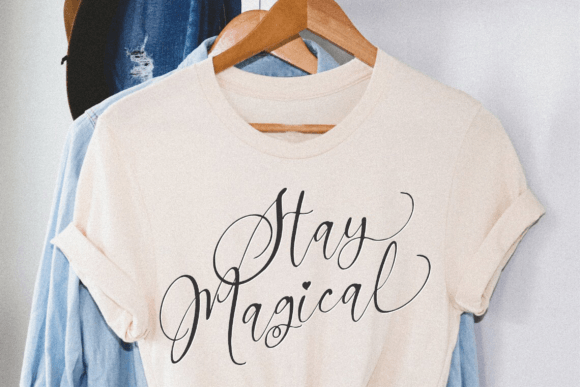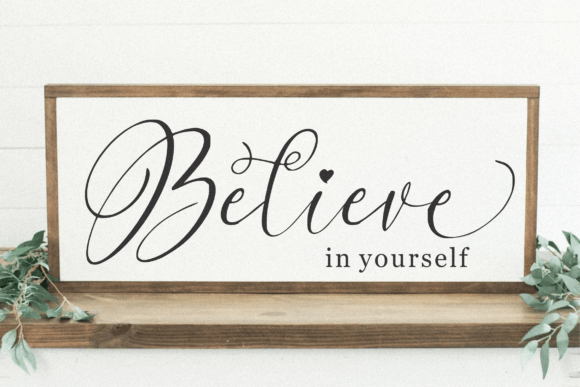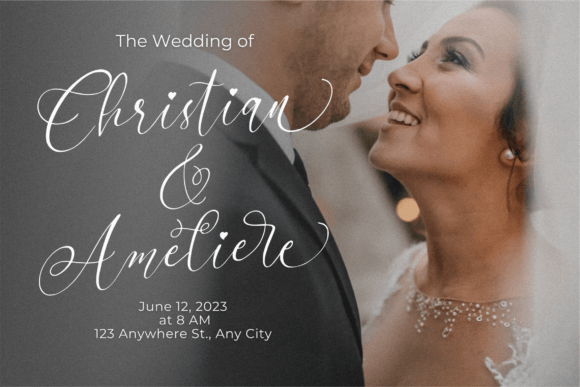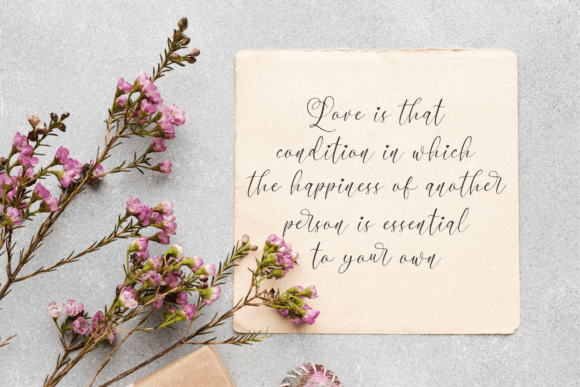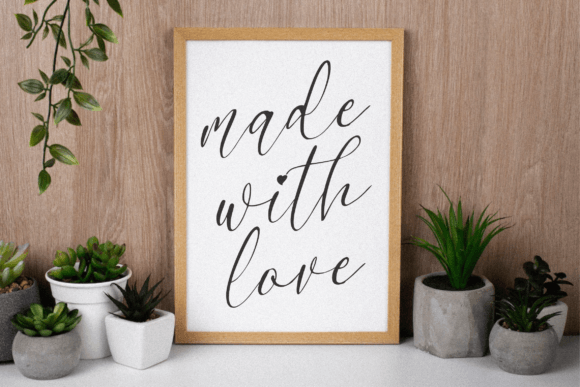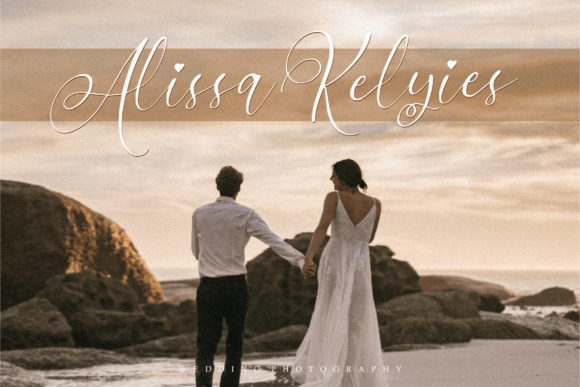
Astanayla Font: Elevate Your Designs with Modern Calligraphy
In the world of design, fonts play a crucial role in conveying messages, expressing emotions, and creating a lasting impression. For designers, crafters, and DIY enthusiasts, finding the perfect font can be a daunting task. However, if you’re looking for a modern calligraphy font that can elevate your designs, look no further than Astanayla Font. In this article, we’ll explore the features, benefits, and uses of Astanayla Font, and why it’s a must-have for any designer or crafter.
What is Astanayla Font?
Astanayla Font is a modern calligraphy font designed to add a touch of elegance and sophistication to your designs. With its fluid strokes, beautiful ligatures, and refined lettering, Astanayla Font is perfect for creating stunning visual content. Whether you’re working on a product packaging project, branding campaign, magazine layout, social media graphics, or wedding invitation, Astanayla Font is the ideal choice.
Features of Astanayla Font
Astanayla Font boasts a range of features that make it a versatile and desirable font for designers and crafters. Some of its notable features include:
• Modern Calligraphy Style: Astanayla Font features a modern calligraphy style that is both elegant and trendy.
• Fluid Strokes: The font’s fluid strokes and connections create a sense of movement and fluidity, making it perfect for designs that require a touch of dynamism.
• Beautiful Ligatures: Astanayla Font includes beautiful ligatures that add a touch of sophistication and refinement to your designs.
• Refined Lettering: The font’s refined lettering and precise craftsmanship make it ideal for designs that require attention to detail.
Uses of Astanayla Font
Astanayla Font is a versatile font that can be used in a variety of design projects, including:
• Product Packaging: Add a touch of elegance to your product packaging with Astanayla Font.
• Branding Projects: Create a lasting impression with Astanayla Font, perfect for branding projects that require a sophisticated look.
• Magazines and Editorials: Use Astanayla Font to add a touch of refinement to your magazine layouts and editorials.
• Social Media Graphics: Elevate your social media graphics with Astanayla Font, perfect for creating stunning visual content.
• Weddings and Events: Make your wedding invitations, programs, and other event materials truly special with Astanayla Font.
Benefits of Using Astanayla Font
Using Astanayla Font in your designs offers a range of benefits, including:
• Unique and Eye-Catching Designs: Astanayla Font helps you create unique and eye-catching designs that stand out from the crowd.
• Elegance and Sophistication: The font’s elegant and sophisticated style adds a touch of refinement to your designs.
• Versatility: Astanayla Font is a versatile font that can be used in a variety of design projects.
• Easy to Read: The font’s clear and precise lettering makes it easy to read, even at small sizes.
Tips for Using Astanayla Font
To get the most out of Astanayla Font, here are some tips to keep in mind:
• Use it Sparingly: Use Astanayla Font sparingly to add emphasis and create visual interest.
• Pair it with Other Fonts: Pair Astanayla Font with other fonts to create a unique and visually appealing combination.
• Experiment with Colors: Experiment with different colors and textures to add depth and interest to your designs.
• Pay Attention to Kerning: Pay attention to kerning and tracking to ensure that your text looks professional and polished.
Author qwrtypefoundry
Astanayla Font is a modern calligraphy font that offers a range of benefits and uses for designers and crafters. With its elegant and sophisticated style, fluid strokes, and refined lettering, Astanayla Font is perfect for creating stunning visual content. Whether you’re working on a product packaging project, branding campaign, magazine layout, social media graphics, or wedding invitation, Astanayla Font is the ideal choice. So why wait? Download Astanayla Font today and elevate your designs to the next level!